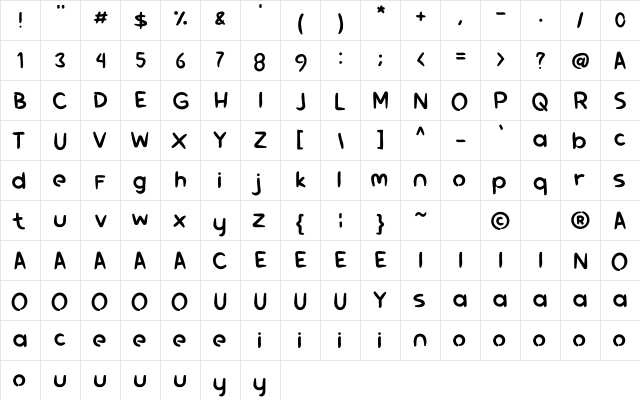
Ghusrak Regular Font Preview
Ghusrak Regular
Design Context for Ghusrak Typeface
Ghusrak takes a measured approach to typography — its balanced proportions and neutral character make it a reliable workhorse for both digital and print work.